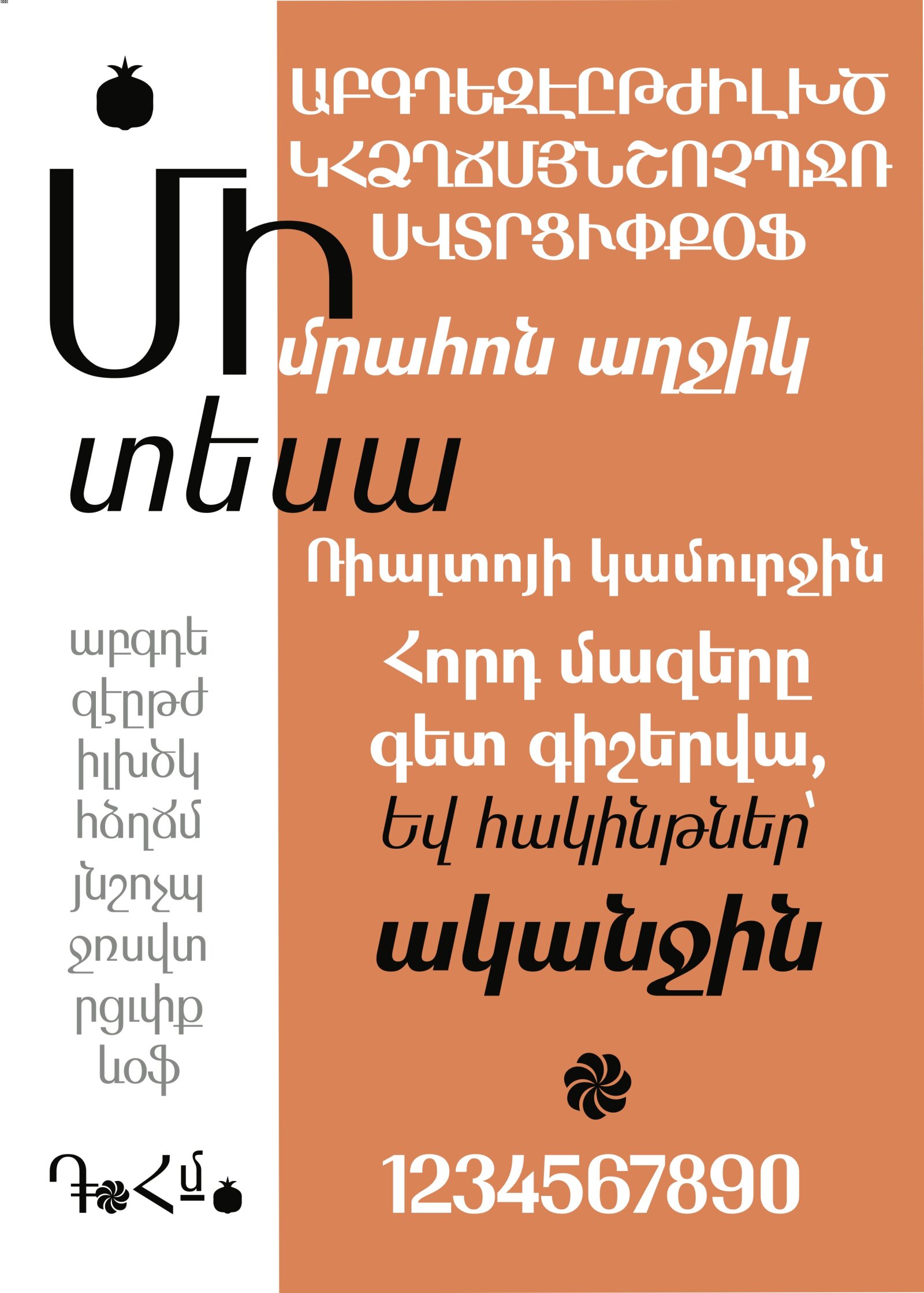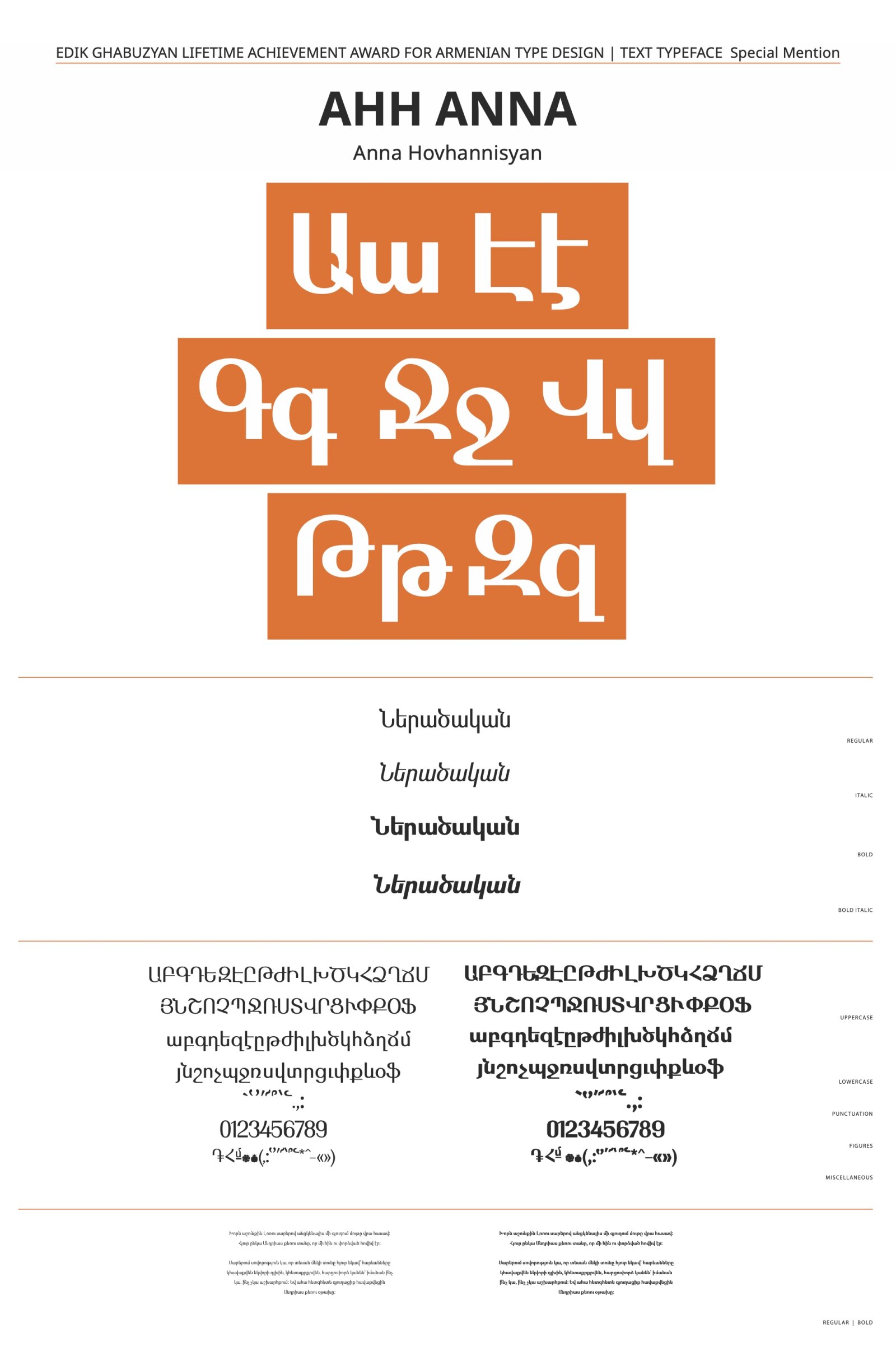
AHH ANNA
by Anna Hovhannisyan
Armenian Special – Ghabuzyan Lifetime Award
Rather nice text typeface with correct letterforms and proportions. Key dimensions are correct across all letterforms. The peculiarities of Armenian letters are preserved, the ascenders and descenders are executed in a correct size. Easy readable in all sizes and weights.
For typing and designing texts.